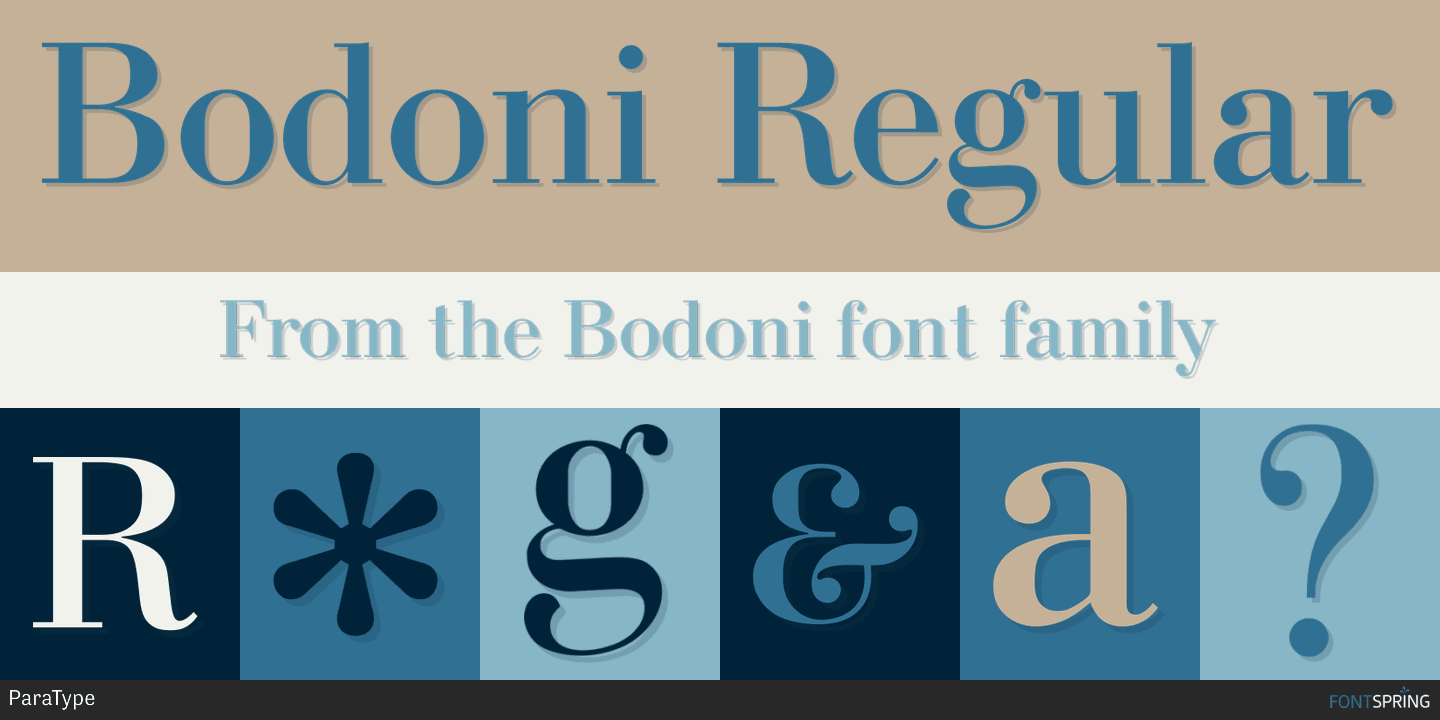
Bodoni Font Family - The libre bodoni fonts are based on the 19th century morris fuller benton's atf design, but. Bodoni (/ bəˈdoʊni /, italian: [boˈdoːni]) is the name given to the serif typefaces first designed.
The libre bodoni fonts are based on the 19th century morris fuller benton's atf design, but. [boˈdoːni]) is the name given to the serif typefaces first designed. Bodoni (/ bəˈdoʊni /, italian:
The libre bodoni fonts are based on the 19th century morris fuller benton's atf design, but. Bodoni (/ bəˈdoʊni /, italian: [boˈdoːni]) is the name given to the serif typefaces first designed.
[boˈdoːni]) is the name given to the serif typefaces first designed. Bodoni (/ bəˈdoʊni /, italian: The libre bodoni fonts are based on the 19th century morris fuller benton's atf design, but.
The libre bodoni fonts are based on the 19th century morris fuller benton's atf design, but. [boˈdoːni]) is the name given to the serif typefaces first designed. Bodoni (/ bəˈdoʊni /, italian:
The libre bodoni fonts are based on the 19th century morris fuller benton's atf design, but. Bodoni (/ bəˈdoʊni /, italian: [boˈdoːni]) is the name given to the serif typefaces first designed.
[boˈdoːni]) is the name given to the serif typefaces first designed. Bodoni (/ bəˈdoʊni /, italian: The libre bodoni fonts are based on the 19th century morris fuller benton's atf design, but.
The libre bodoni fonts are based on the 19th century morris fuller benton's atf design, but. Bodoni (/ bəˈdoʊni /, italian: [boˈdoːni]) is the name given to the serif typefaces first designed.
[boˈdoːni]) is the name given to the serif typefaces first designed. Bodoni (/ bəˈdoʊni /, italian: The libre bodoni fonts are based on the 19th century morris fuller benton's atf design, but.
Bodoni (/ bəˈdoʊni /, italian: The libre bodoni fonts are based on the 19th century morris fuller benton's atf design, but. [boˈdoːni]) is the name given to the serif typefaces first designed.
Bodoni Font
[boˈdoːni]) is the name given to the serif typefaces first designed. The libre bodoni fonts are based on the 19th century morris fuller benton's atf design, but. Bodoni (/ bəˈdoʊni /, italian:
[Boˈdoːni]) Is The Name Given To The Serif Typefaces First Designed.
The libre bodoni fonts are based on the 19th century morris fuller benton's atf design, but. Bodoni (/ bəˈdoʊni /, italian: